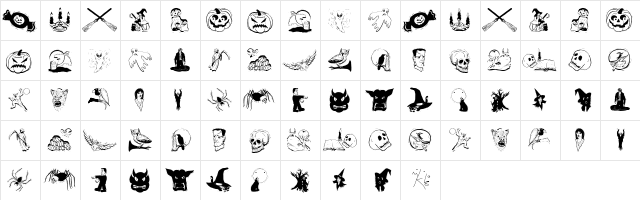
HalloweenTwo Regular
Design Context for HalloweenTwo Typeface
HalloweenTwo is a composed and adaptable typeface that performs quietly and consistently across a wide range of design contexts.